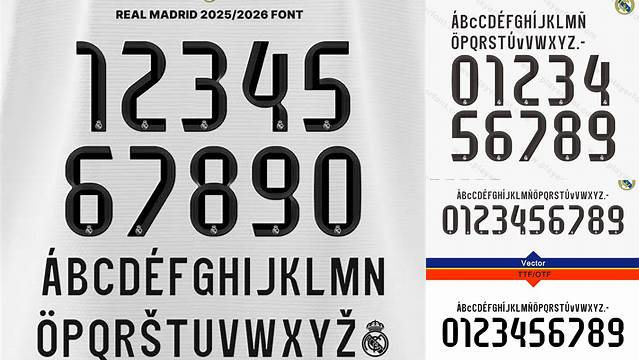
Are you a die-hard Real Madrid fan looking to infuse the spirit of Los Blancos into your creative projects? Or perhaps you're a designer aiming to capture the essence of this legendary football club in your work? Well, you've come to the right place! In this comprehensive guide, we'll dive deep into the world of Real Madrid fonts, focusing on the much-anticipated 2026 font and how you can download it for free in PDF format. We'll explore the history, significance, and usage of these iconic fonts, providing you with everything you need to know to make your designs stand out.
The Legacy of Real Madrid Fonts
Real Madrid, a club synonymous with excellence, history, and a global fanbase, boasts a visual identity that's as iconic as its on-field performances. The fonts used in their jerseys, official documents, and merchandise play a crucial role in maintaining this identity. Over the years, Real Madrid has utilized various fonts, each reflecting the era and the club's evolving brand image. Understanding the history of these fonts is essential to appreciating the significance of the 2026 font. Think about it, guys, the font isn't just some random typeface; it's a symbol of the club's heritage and aspirations.
From classic serif fonts that exude tradition to modern, sleek typefaces that scream innovation, Real Madrid's font choices have always been deliberate and impactful. Each font tells a story, evoking emotions of passion, glory, and unwavering support. The design of these fonts often incorporates elements that reflect the club's crest, colors, and overall brand identity. Imagine the intricate details that go into creating a typeface that embodies the spirit of such a prestigious institution. It's not just about legibility; it's about creating a visual language that resonates with millions of fans worldwide.
The evolution of Real Madrid's fonts mirrors the club's own journey through time. Just as the team has adapted to changing styles of play and faced new challenges, so too have their fonts evolved to stay relevant and contemporary. The 2026 font, therefore, represents the latest chapter in this ongoing story, a visual representation of the club's ambitions for the future. It's a fusion of tradition and modernity, a typeface designed to capture the hearts of fans while projecting an image of strength and sophistication. So, when you download that font, you're not just getting a typeface; you're getting a piece of Real Madrid history.
Unveiling the Real Madrid 2026 Font
So, what can we expect from the Real Madrid 2026 font? While the official design is often shrouded in secrecy until its grand reveal, we can certainly speculate based on current trends and the club's past design choices. Typically, a new font is introduced alongside the unveiling of the new season's kit, creating a unified visual identity. The 2026 font is likely to be no different, designed to complement the overall aesthetic of the jerseys and merchandise. Think about the anticipation, guys! It's like waiting for a new signing – everyone's eager to see what the club has in store.
Given the trend towards clean, modern fonts in sports branding, we can anticipate a typeface that balances legibility with a touch of flair. It's likely to be a font that looks equally good on a jersey, a poster, or a website. Perhaps we'll see subtle nods to the club's history incorporated into the design, such as stylized serifs or unique letterforms that echo the shape of the club's crest. The possibilities are endless, and the designers have a challenging task of creating a font that's both timeless and contemporary.
The 2026 font will undoubtedly be more than just a typeface; it will be a statement. It will communicate Real Madrid's ambition, its commitment to excellence, and its connection with its global fanbase. The choice of font will reflect the club's values and its vision for the future. It's a crucial element in the club's branding, and it's something that fans will instantly recognize and associate with their beloved team. So, when the 2026 font is finally revealed, it will be a moment of excitement and anticipation for Real Madrid fans around the world. It's a chance to see the club's visual identity evolve and to embrace the latest chapter in their rich history.
So, go forth and create! Let the Real Madrid 2026 font be your guide in expressing your love for the club. Whether you're a designer, a fan, or simply someone who appreciates the beautiful game, this font is a powerful tool for connecting with the world of Real Madrid. Embrace the challenge, experiment with different designs, and most importantly, have fun! The spirit of Real Madrid is all about passion, excellence, and unwavering support – let your designs reflect that, and you'll be sure to create something truly special. Hala Madrid!